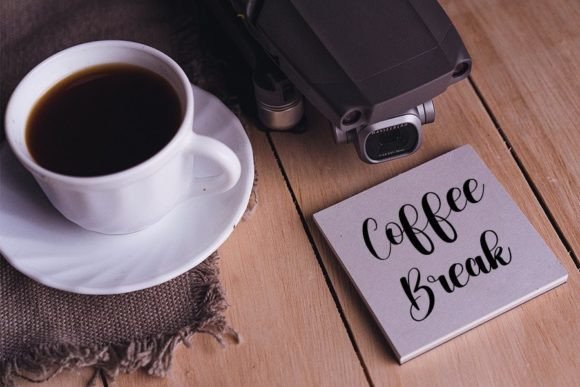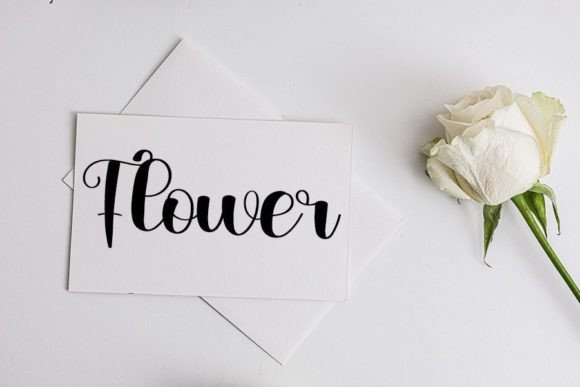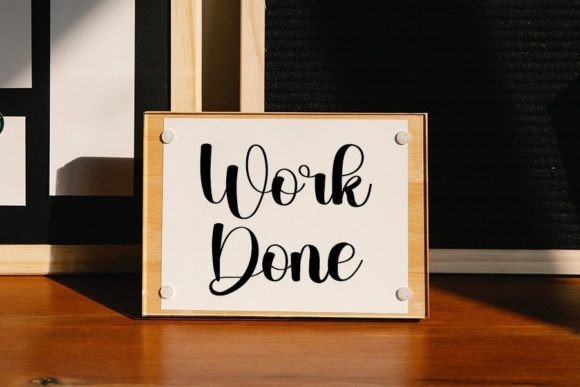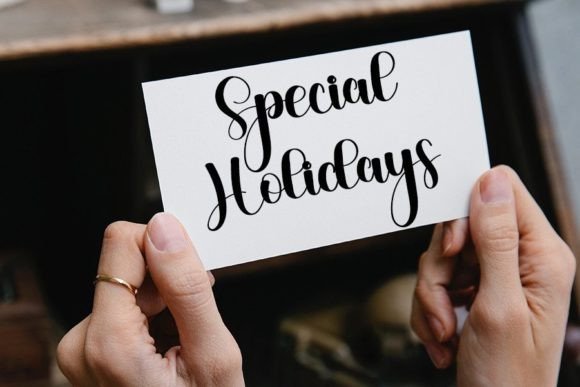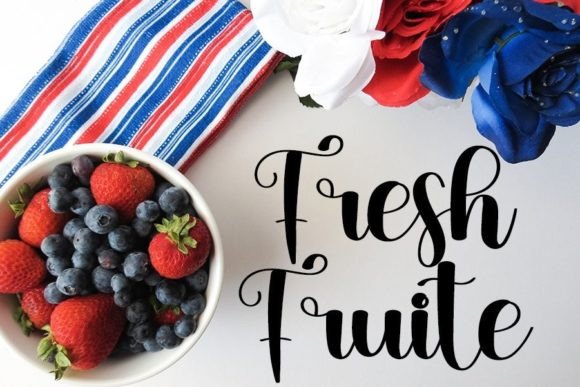
Introducing Blacklist Font: Elevate Your Designs with Timeless Elegance
In the world of typography, a font can make or break the aesthetic of a design project. For those seeking a stylish, handwritten font that exudes a contemporary atmosphere while paying homage to classic calligraphy, look no further than Blacklist Font. This beautifully crafted typeface is designed to bring an air of sophistication and elegance to any project, making it a must-have for designers and crafters alike.
The Inspiration Behind Blacklist Font
Blacklist Font draws its inspiration from timeless classic calligraphy, bringing a sense of tradition and heritage to the table. However, it does so with a modern twist, ensuring that it remains fresh and relevant in today’s design landscape. This blend of old and new results in a font that is not only stylish but also incredibly versatile.
Key Features of Blacklist Font
So, what sets Blacklist Font apart from other typefaces? Here are a few key features that make it an excellent choice for your design projects:
- Contemporary Atmosphere: Despite its classic inspiration, Blacklist Font boasts a contemporary feel that will make your designs stand out. Its modern sensibilities ensure that it pairs well with a wide range of design elements.
- Impeccable Form: The font’s impeccable form refers to its balanced and well-proportioned lettering. Each character is carefully crafted to ensure that the font looks great in any context, whether you’re using it for headings, body text, or decorative elements.
- Balanced and Varied: Blacklist Font offers a range of variations, allowing you to add depth and interest to your designs. Its balanced nature ensures that it remains legible and aesthetically pleasing, even in larger blocks of text.
Why Choose Blacklist Font?
- Enhances Beauty: Blacklist Font is designed to enhance the beauty of your projects. Whether you’re working on a branding campaign, a website, or a craft project, this font will elevate your design and make it more visually appealing.
- Versatile: From elegant headings to more casual, handwritten-style text, Blacklist Font is incredibly versatile. Its range of applications makes it an excellent addition to any designer’s toolkit.
- Easy to Read: Despite its stylish and elegant appearance, Blacklist Font remains easy to read. This makes it an excellent choice for body text, as well as for headings and titles.
Using Blacklist Font in Your Projects
- Branding and Logos: Create a lasting impression with a stylish logo or branding campaign that incorporates Blacklist Font.
- Web Design: Add a touch of elegance to your website with Blacklist Font, perfect for headings, titles, and more.
- Crafting and DIY Projects: Whether you’re creating handmade cards, invitations, or other craft projects, Blacklist Font can add a beautiful, personal touch.
Blacklist Font is a stylish, handwritten typeface that brings a touch of timeless elegance to any design project. Its contemporary atmosphere, impeccable form, and balanced, varied lettering make it an excellent choice for designers and crafters looking to elevate their designs. With its versatility, readability, and range of applications, Blacklist Font is sure to become a go-to font in your collection.